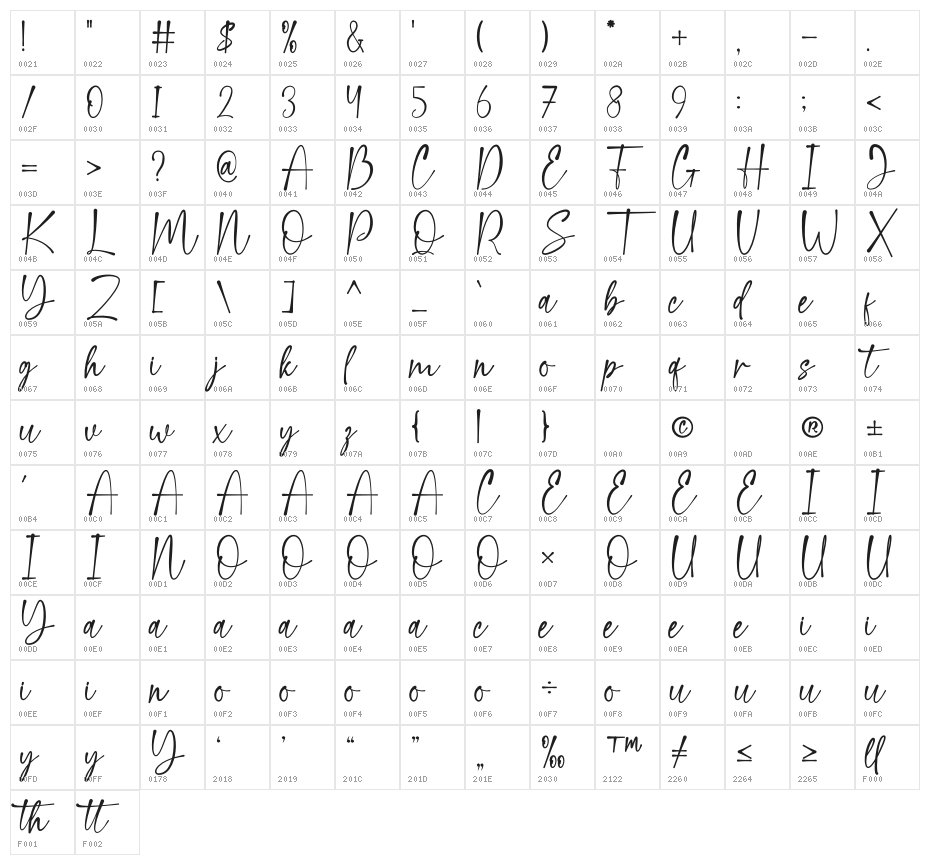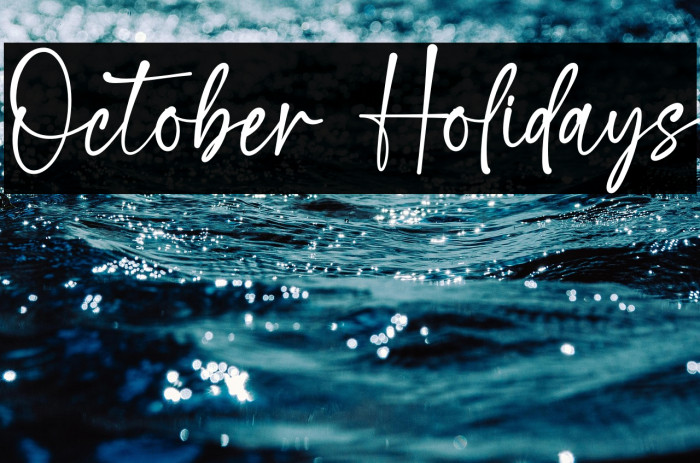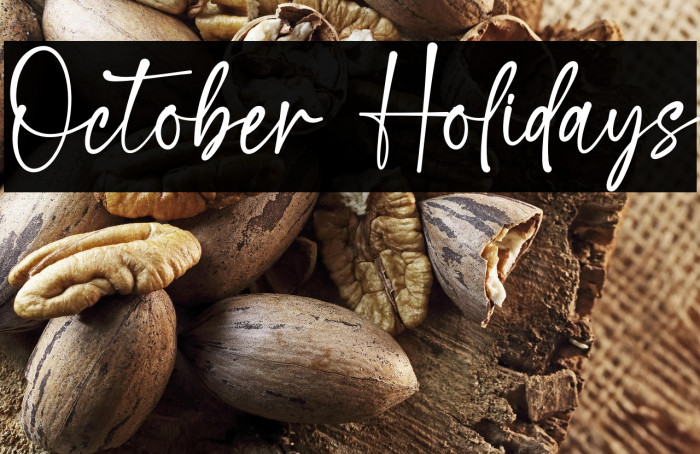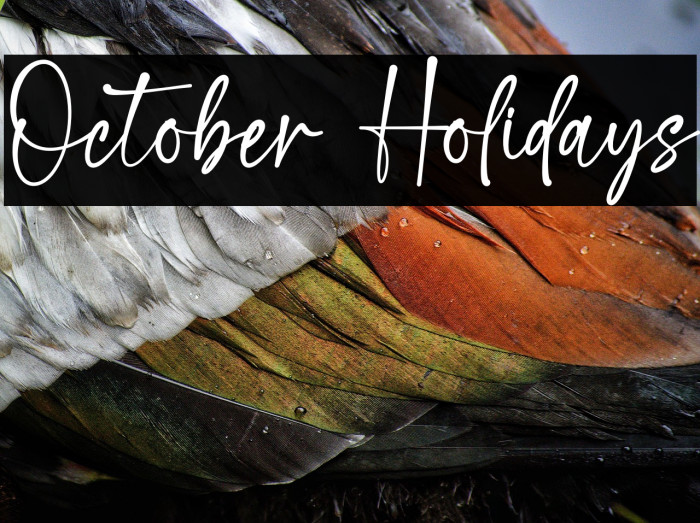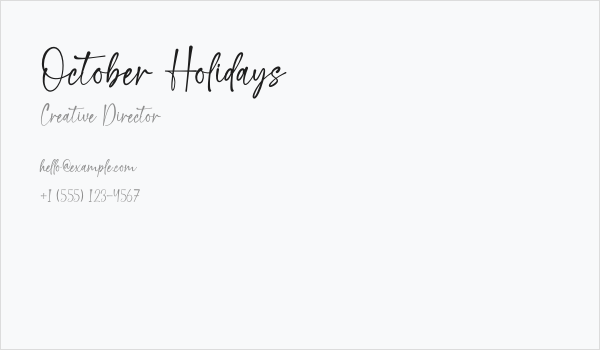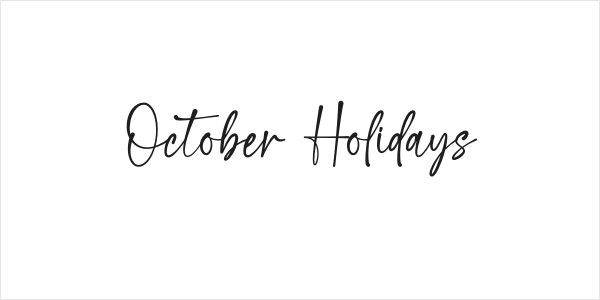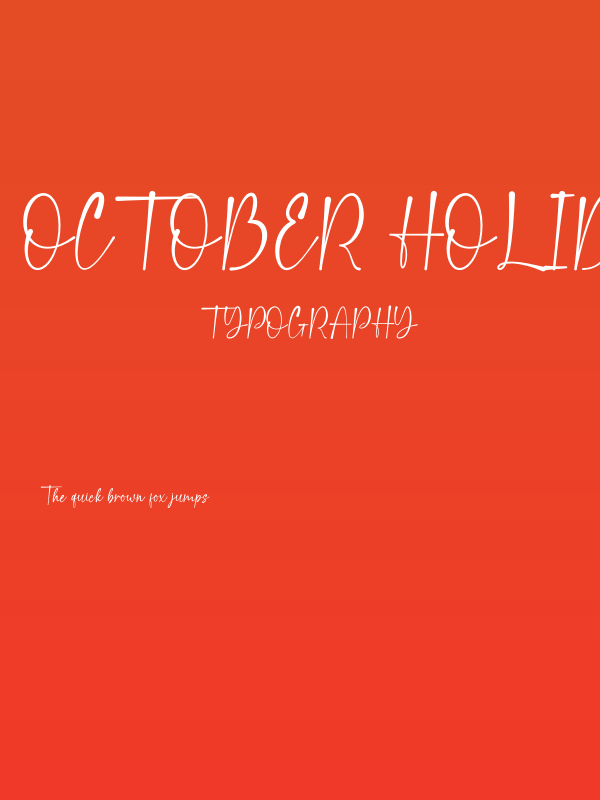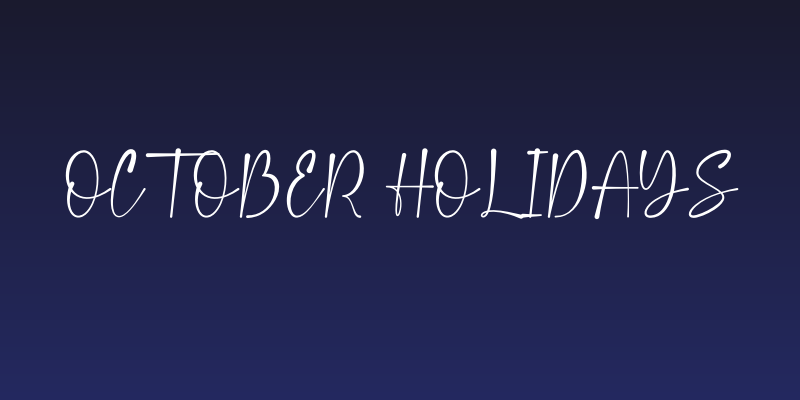
October Holidays Font
October Holidays Description
A playful handwritten script with both uppercase and lowercase sets, featuring tall, narrow letterforms and a casual, flowing style. The uppercase is thin and airy, while the lowercase is bolder and more expressive, with noticeable loops and varying stroke thickness.
| Overall Style | Decorative, Playful, Casual |
| Use Case | Headlines, Logos, Invitations, Posters |
| Proposed Projects | Greeting cards, invitations, posters, branding for creative businesses, social media graphics. |